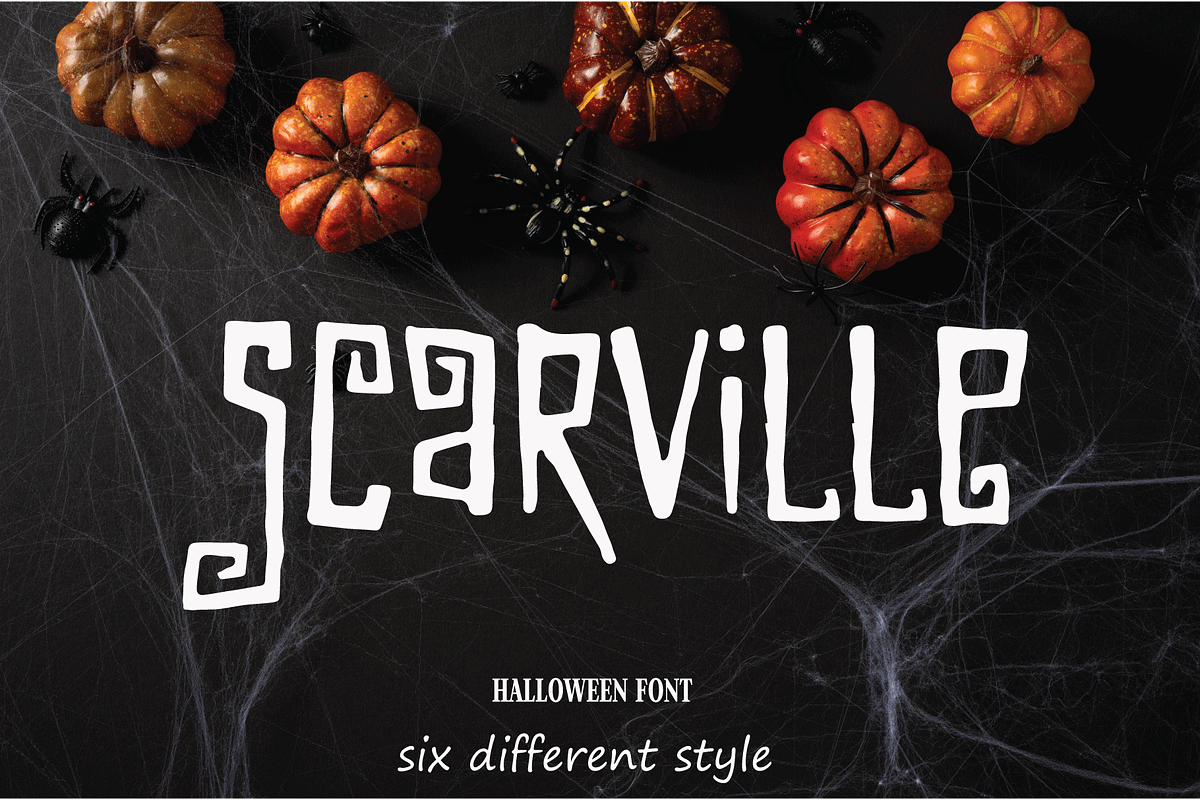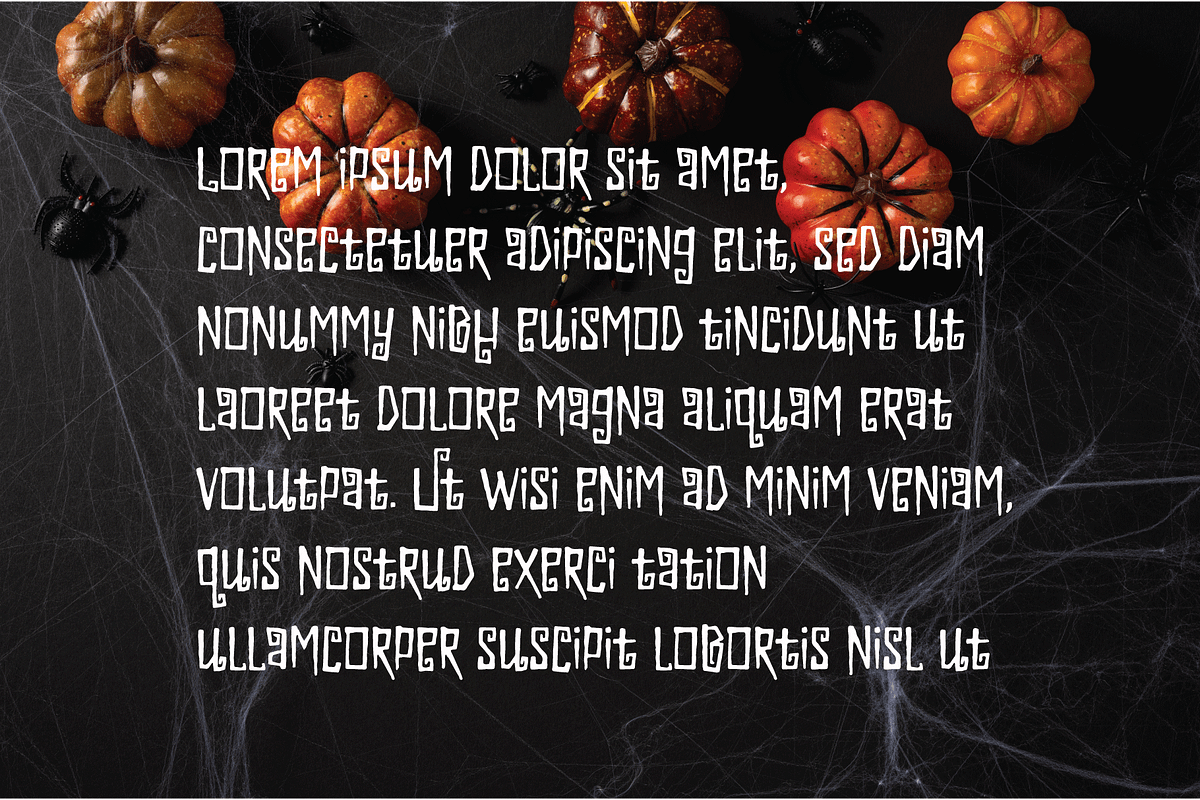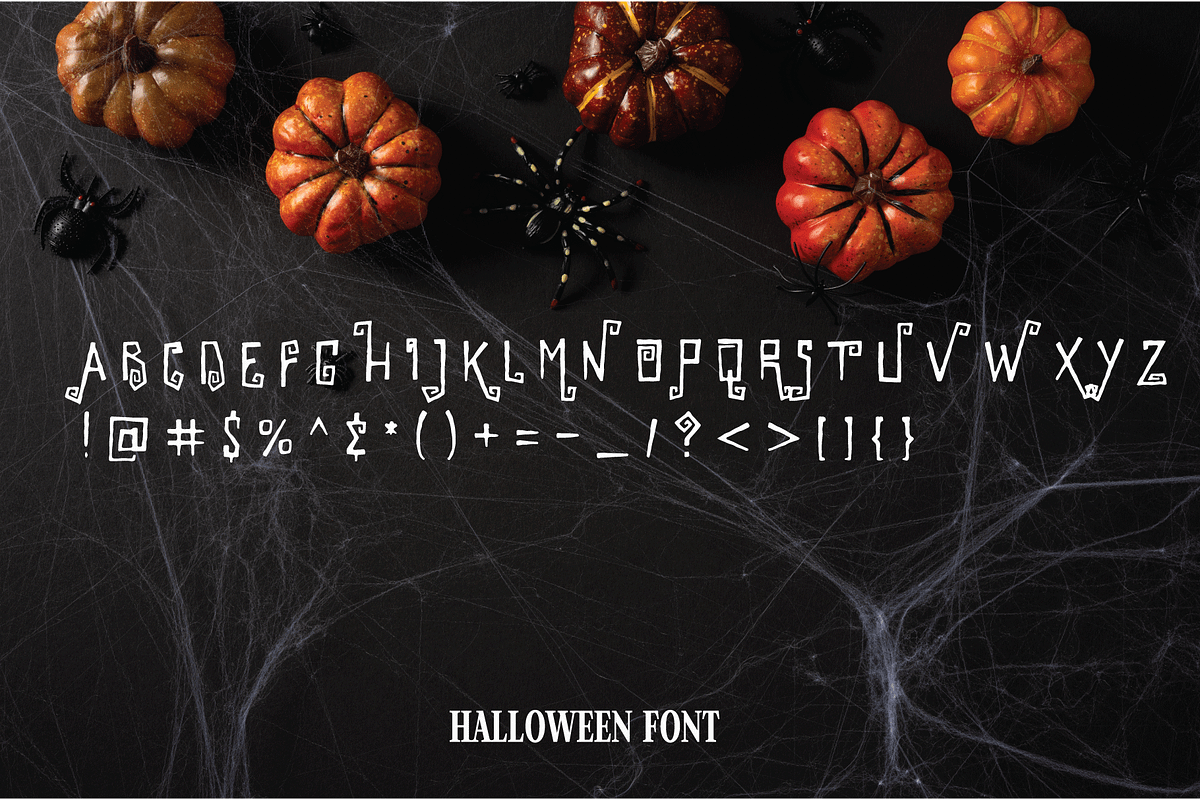
Scarville
Scarville is an excellent choice for Halloween projects. Use its eerie atmosphere as a jumping-off point for your Horror project. There are numbers, punctuation, and multilingual letters included. These ligatures will come in handy for whatever your imagination brings to mind up..
7 Styles
Basic Latin A-Z and a-z
Stylistic Ligatures
Multilingual Support for ä ö ü Ä Ö Ü ...